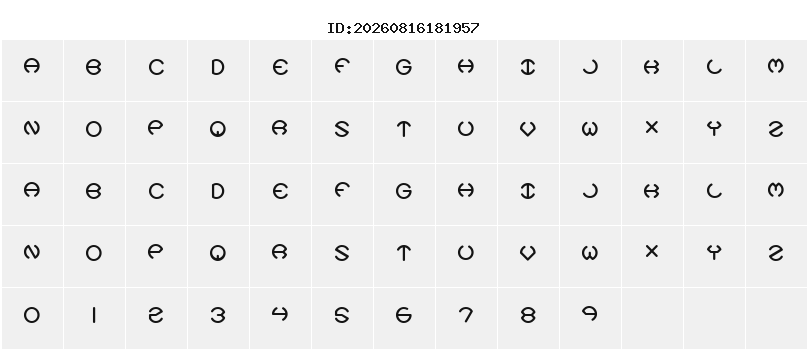
Spheroids X (BRK) Preview
• Font Name: Spheroids X (BRK)
• Full Font Name: Spheroids X -BRK-
About Spheroids X (BRK).ttf
Spheroids X (BRK).ttf is a modern, elegant sans-serif font designed for ultimate readability and visual harmony. Perfect for branding, headlines, web design, and print materials.